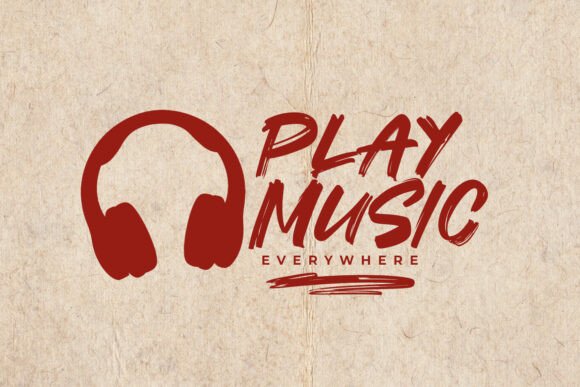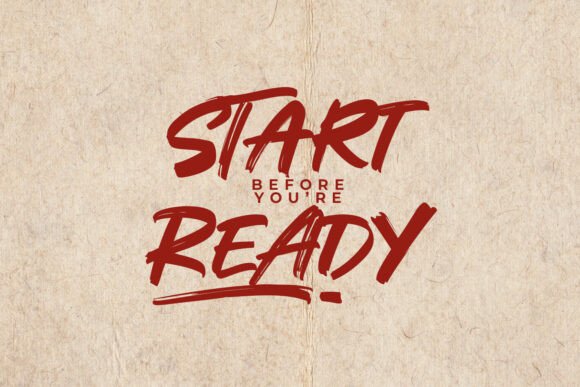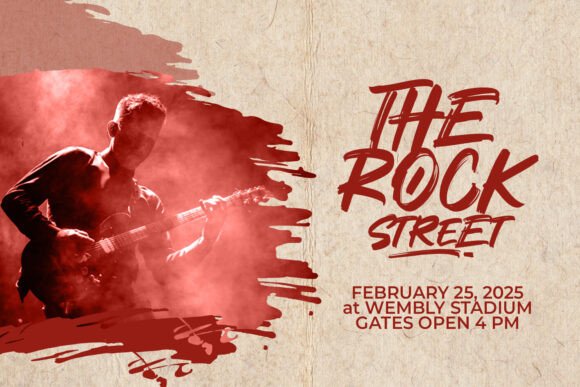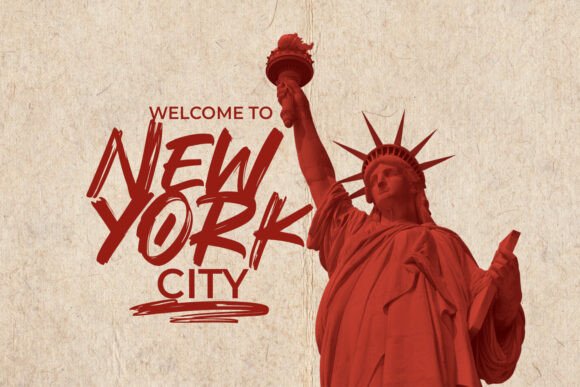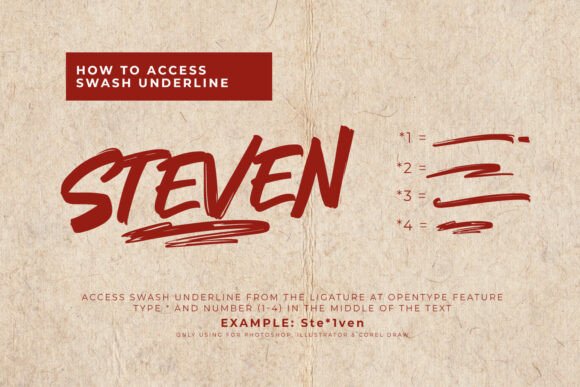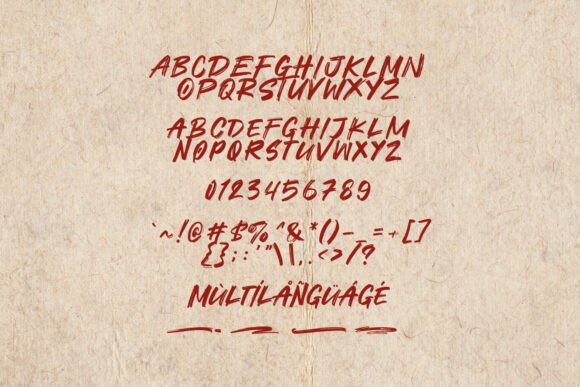
Introduction to Oldex Font
As a designer, you’ve probably experienced that moment when a spark of creativity strikes, and you envision the perfect visual representation for your project. The idea is there, but the perfect font to bring it to life is missing. This is where the Oldex Font comes in – a modern brush font designed to make your creative projects stand out.
With its unique blend of quirkiness and elegance, the Oldex Font is perfect for posters, logos, magazines, book covers, banners, and many more. Whether you’re working on a high-quality design for a client or a personal project, this font is sure to add a touch of sophistication to your work.
Key Features of Oldex Font
- Unique, vintage-inspired aesthetic, perfect for adding a touch of nostalgia to your design
Honest Review: Oldex Font
I recently had the chance to work with the Oldex Font, and I must say, it’s been a game-changer for my creative projects. The high quality of this font is truly impressive, making it a valuable addition to any design resource.
- What works well: ✨ The transparent background of the font makes it incredibly versatile, allowing me to use it for a variety of design tasks.
- What works well: ✨ The font’s elegant and sophisticated design makes it perfect for high-end projects, from luxury branding to editorial design.
- ⚠️ The font may not be ideal for projects that require a more playful or casual tone.
- ⚠️ The lack of bold and italic variations may limit its use in certain situations.
Overall, I’m thoroughly impressed with the Oldex Font. Its high quality and versatility make it a valuable design resource that I’ll continue to use for all my creative projects.
Tips for Getting the Most Out of Oldex Font
For optimal results, use Oldex Font on a transparent background to create a clean and modern design. Experiment with different font sizes and styles to find the perfect balance for your creative project. You can also use Oldex Font in combination with other design elements, such as images and graphics, to create a visually appealing design.
Common Use Cases for Oldex Font
Oldex Font is ideal for a variety of design projects, including logos, brochures, business cards, and website headers. Its high-quality design and versatility make it a popular choice among designers and creatives.